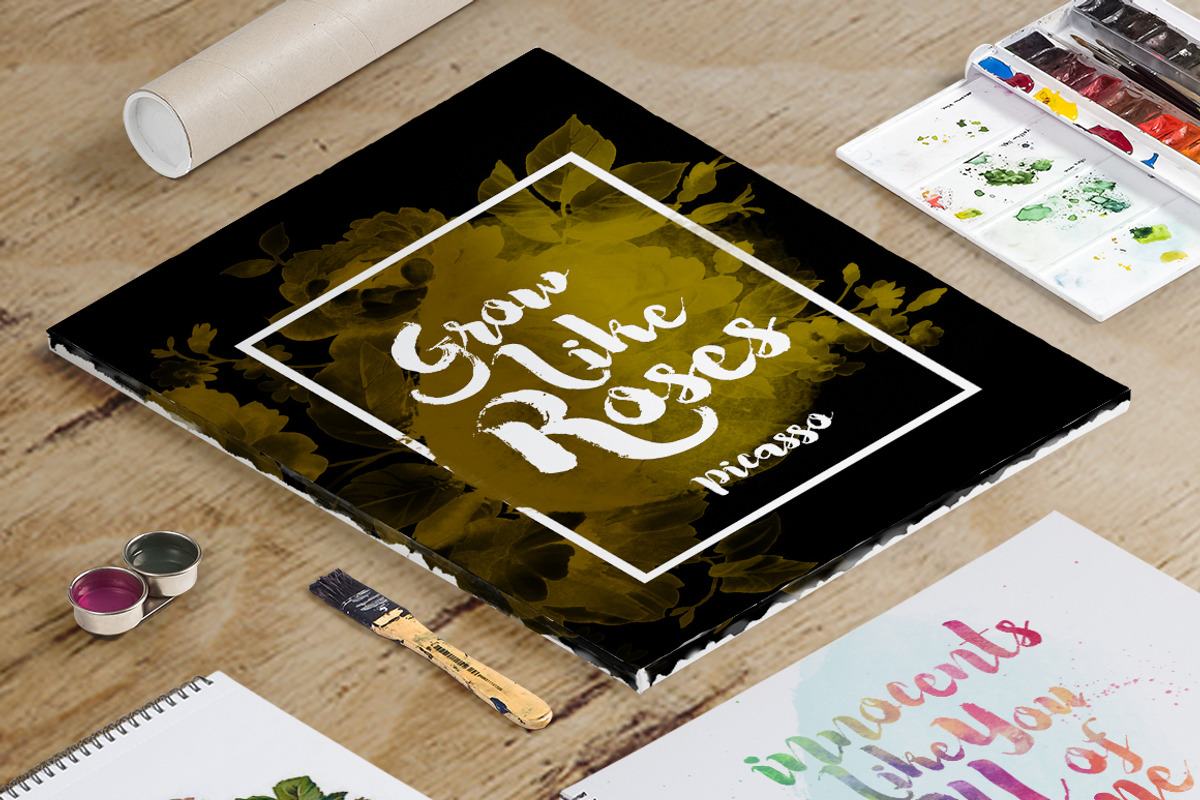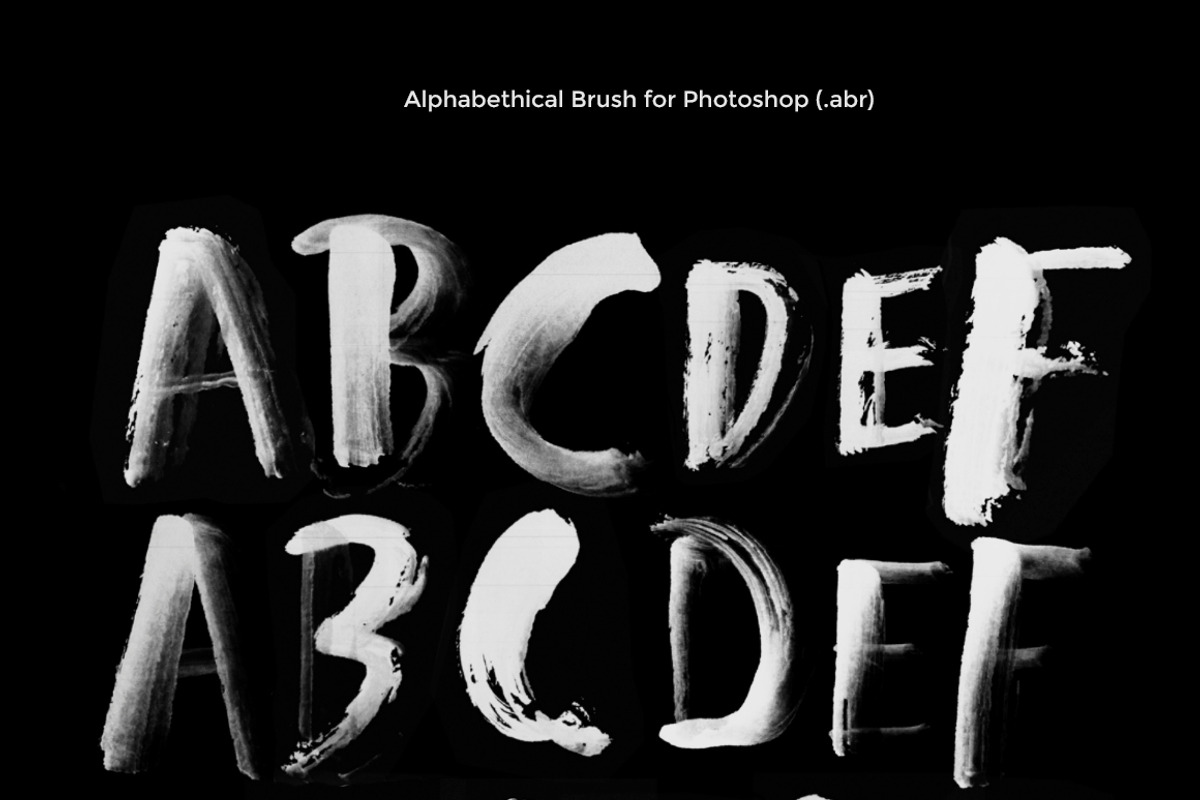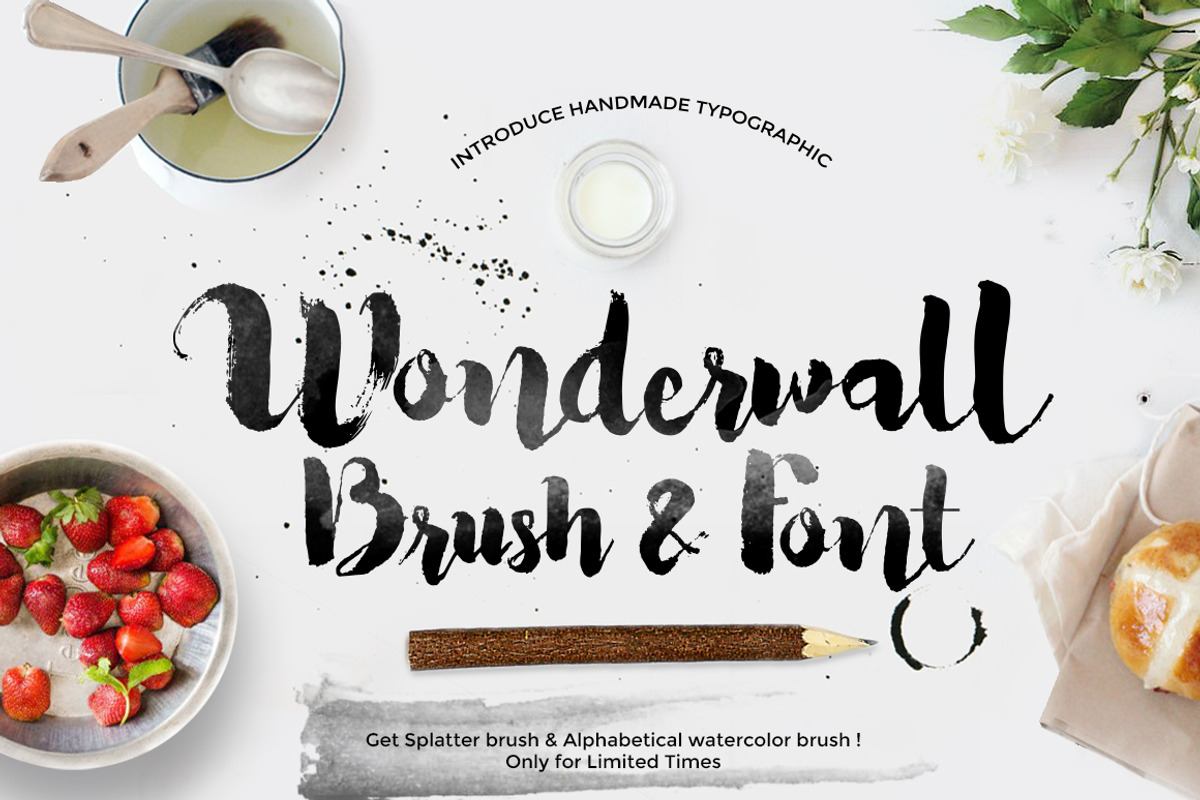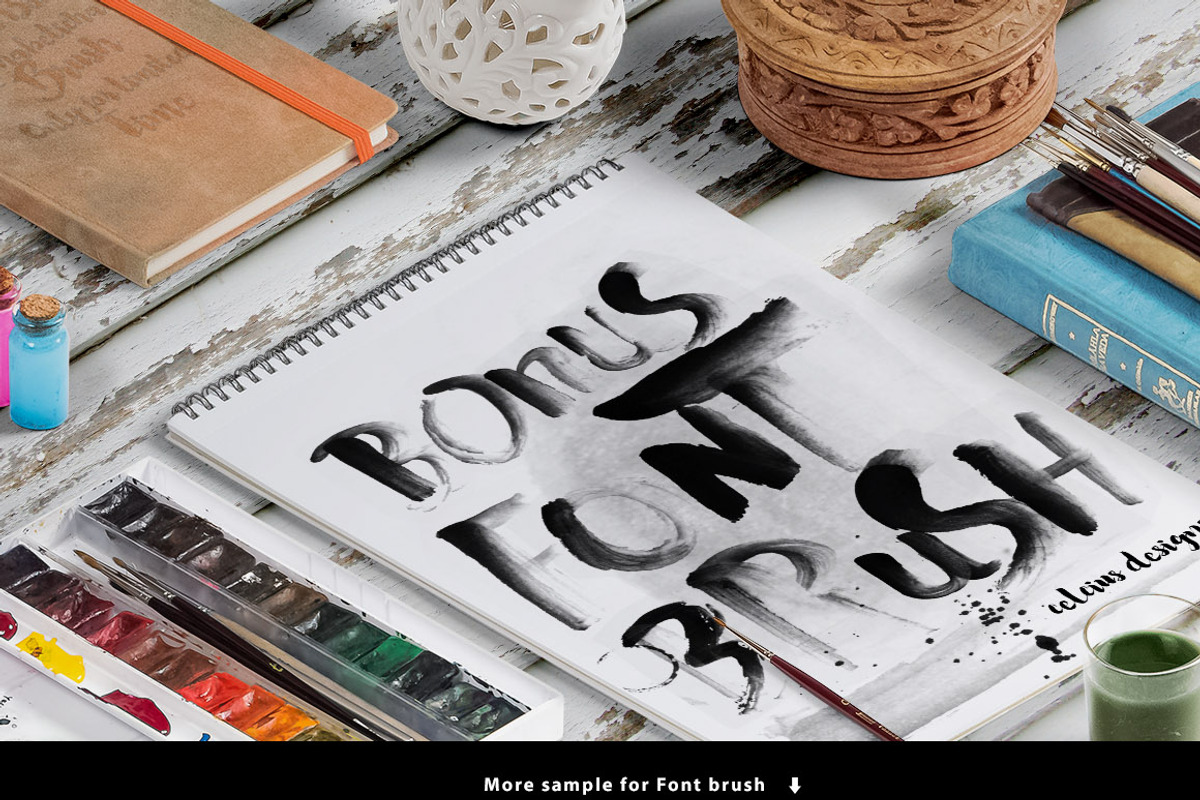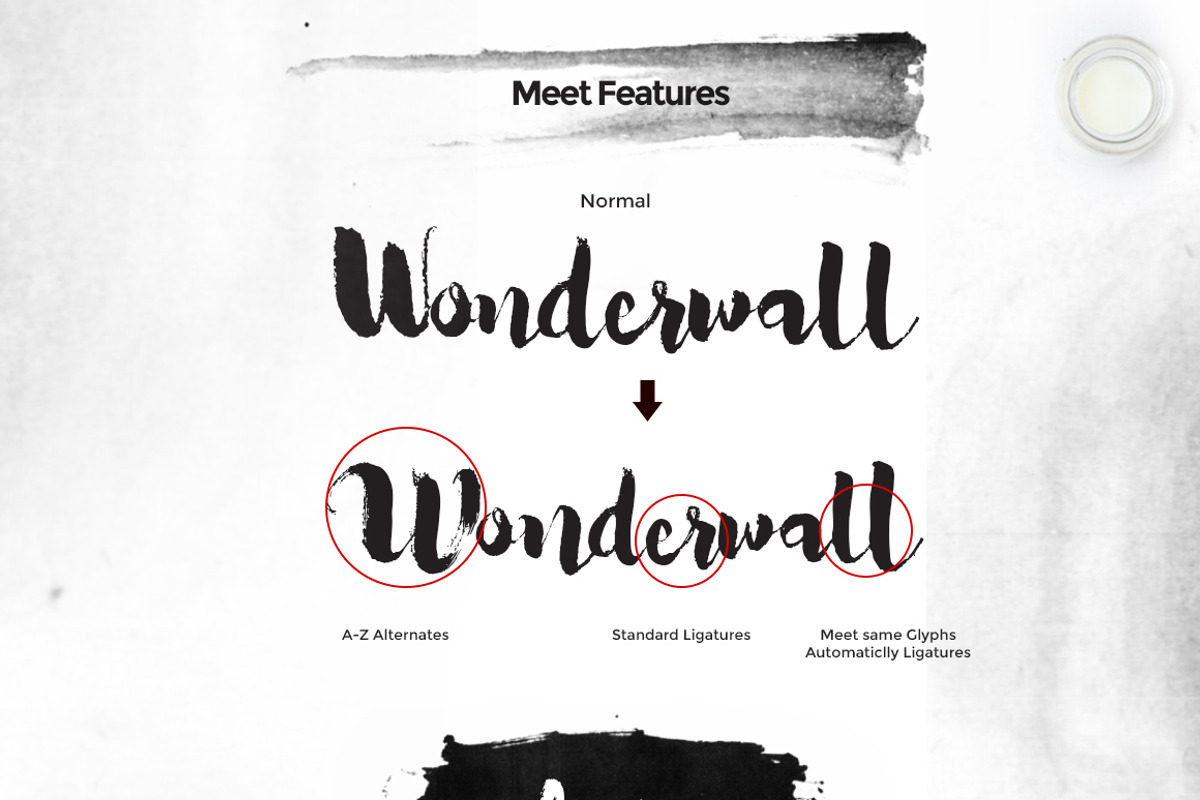
Wonderwall Font & Alphabetical Brush
Wonderwall Font & Alphabetical Brush by Fortunes Co is a font selected for branding, posters, packaging, typography.
- trying to make a case characters irregular but have a good harmony.
- Create something different with ligatures and alternate.
- greeting in love with the natural impression, wedding card Grab Bonus original alphabetical handpainted, with transparant watercolor you cou
Why Wonderwall Font & Alphabetical Brush is worth a look
Wonderwall Font & Alphabetical Brush by Fortunes Co fits naturally into Branding, posters, packaging, typography.